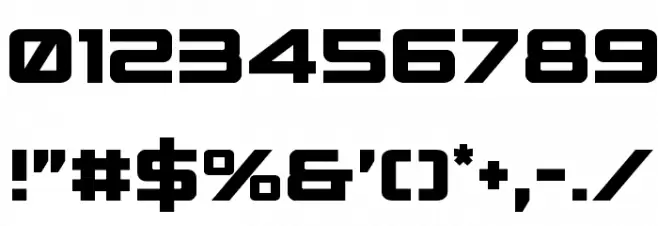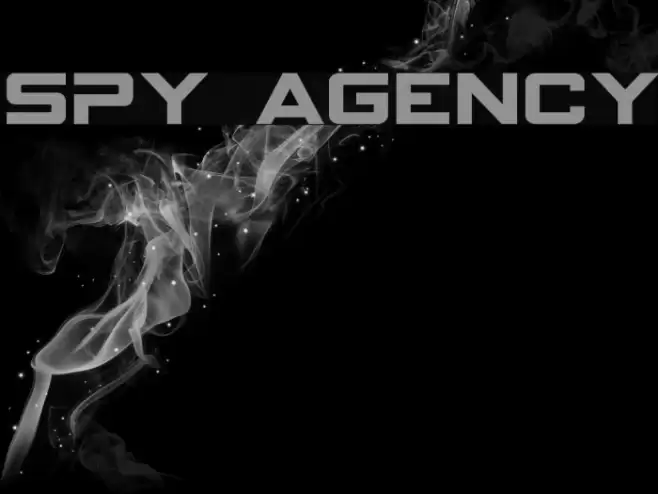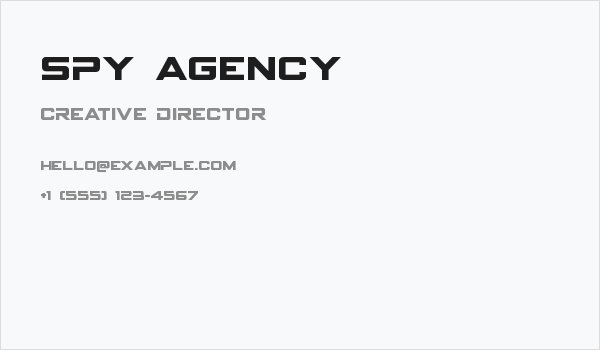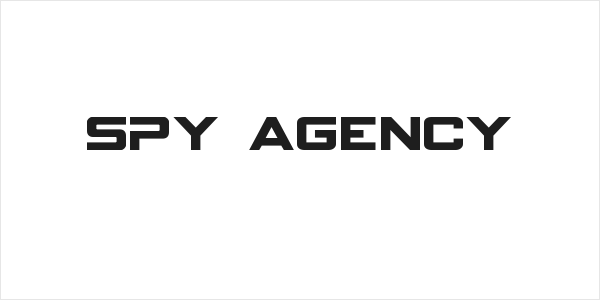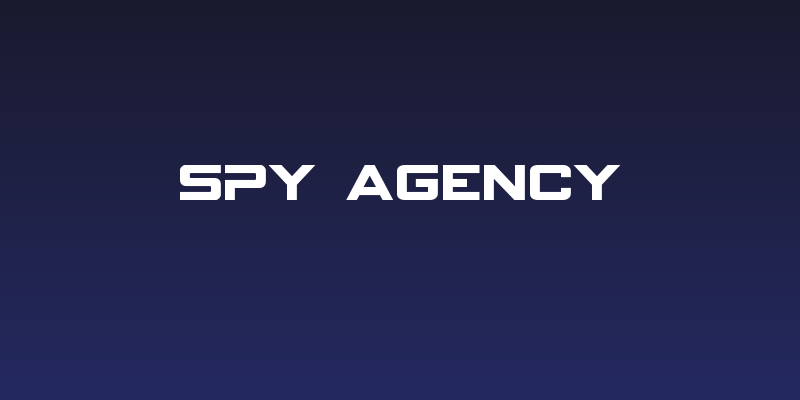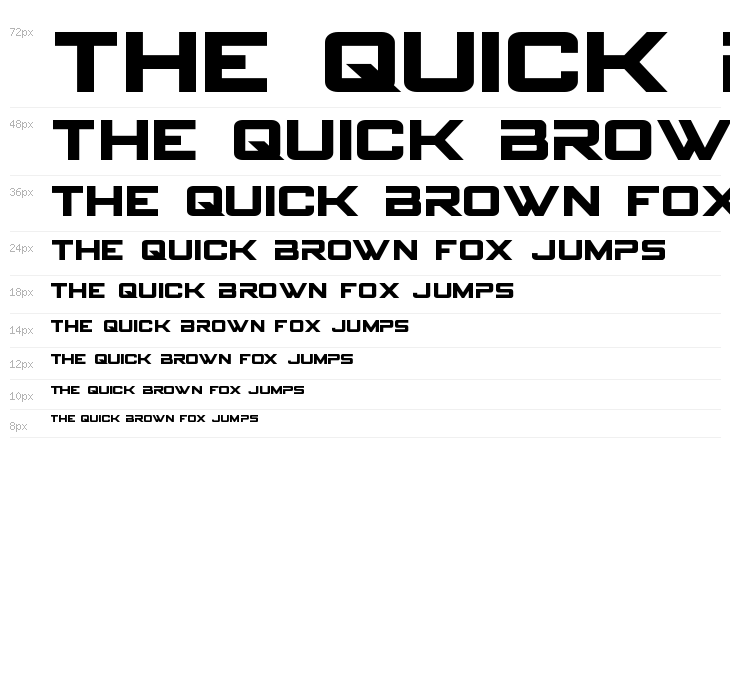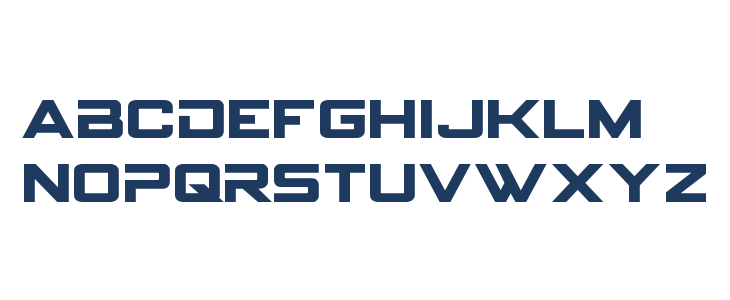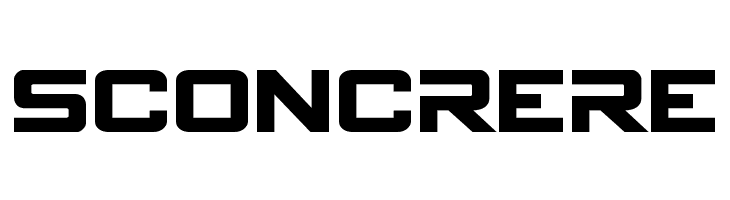
Spy Agency Font
Spy Agency Description
This font features a bold and futuristic design, characterized by its geometric and angular shapes. The uppercase letters are uniformly structured, with a consistent height and width that gives a sense of stability and strength. The lowercase letters maintain the same angular style, ensuring cohesion across all characters. Numbers are distinct and easily readable, with a modern edge that complements the overall aesthetic. Special characters are designed with the same boldness, ensuring they stand out while maintaining the font's cohesive look. This font is ideal for projects that require a modern, tech-inspired feel.
| Proposed Projects | Ideal for technology branding, video game titles, sci-fi movie posters, and modern web design. |